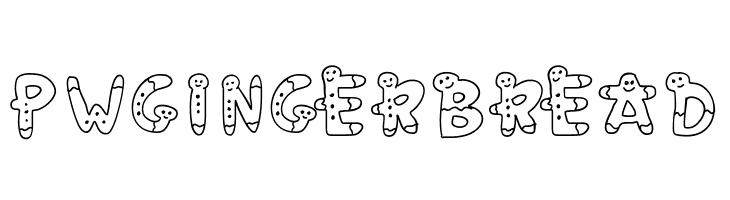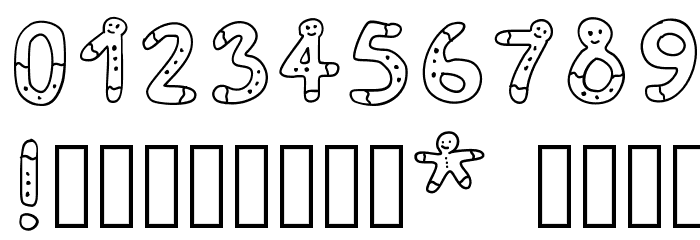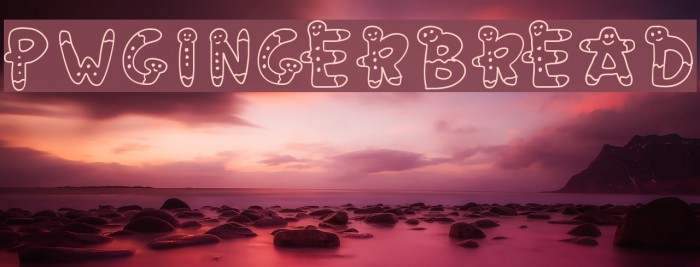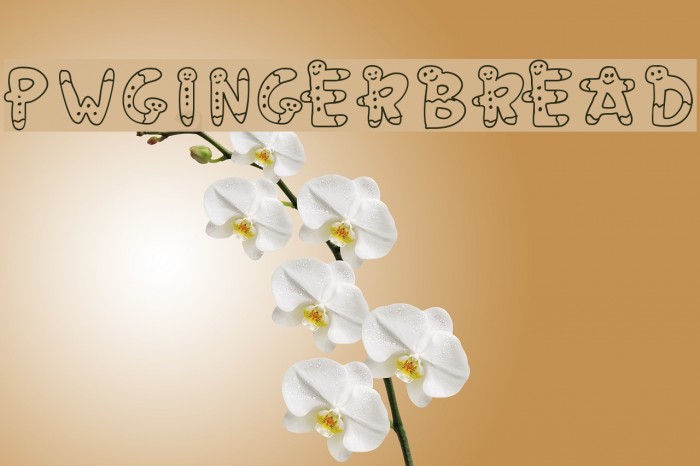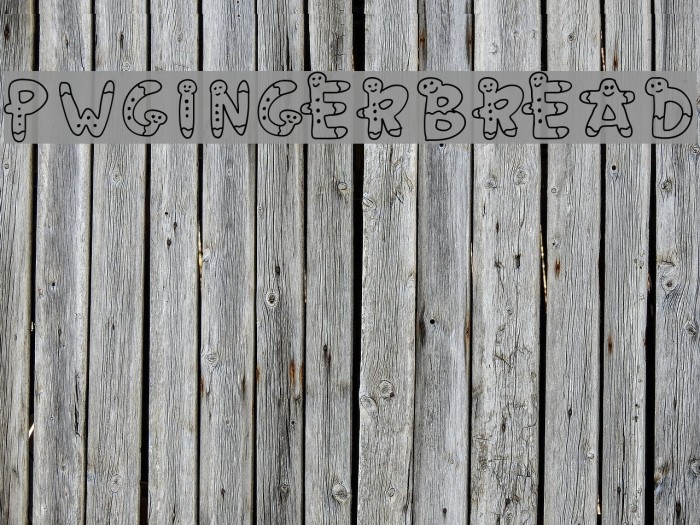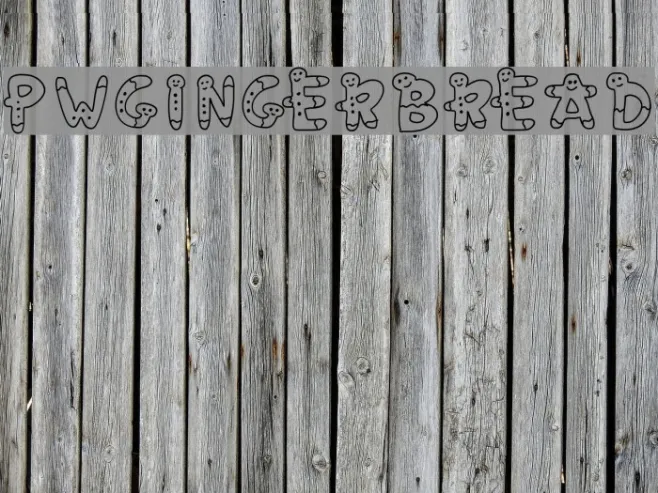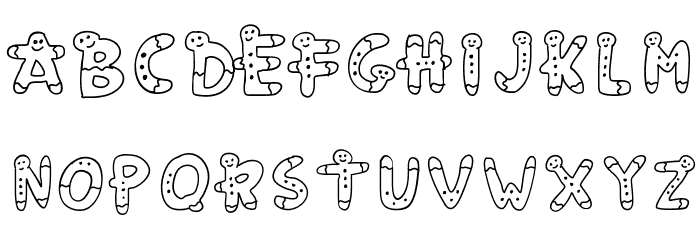
PWGingerbread Font
PWGingerbread Description
This playful and whimsical font features characters designed to resemble gingerbread cookies, complete with icing-like details and a soft, rounded appearance. Each letter and number is adorned with small dots and lines that mimic the look of decorative icing, giving the font a festive and cheerful vibe. The characters are bold and slightly chunky, with a consistent thickness that adds to the cookie-like aesthetic. The font includes both uppercase and lowercase letters, as well as numbers and a selection of special characters, all maintaining the same delightful theme. This font is perfect for holiday-themed projects or any design that requires a touch of fun and creativity.
| Overall Style | Whimsical |
| Use Case | Headlines, Logos, Decorative text |
| Proposed Projects | Ideal for holiday cards, festive banners, children's party invitations, and playful branding. |